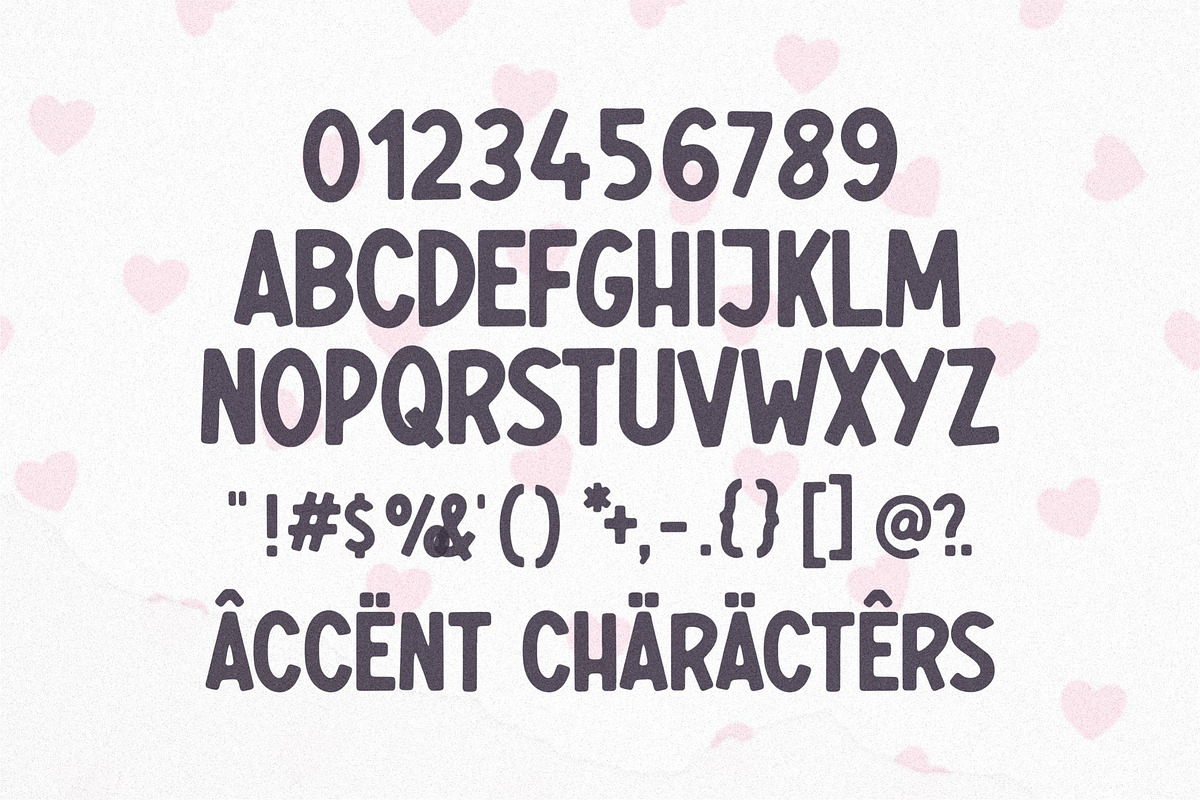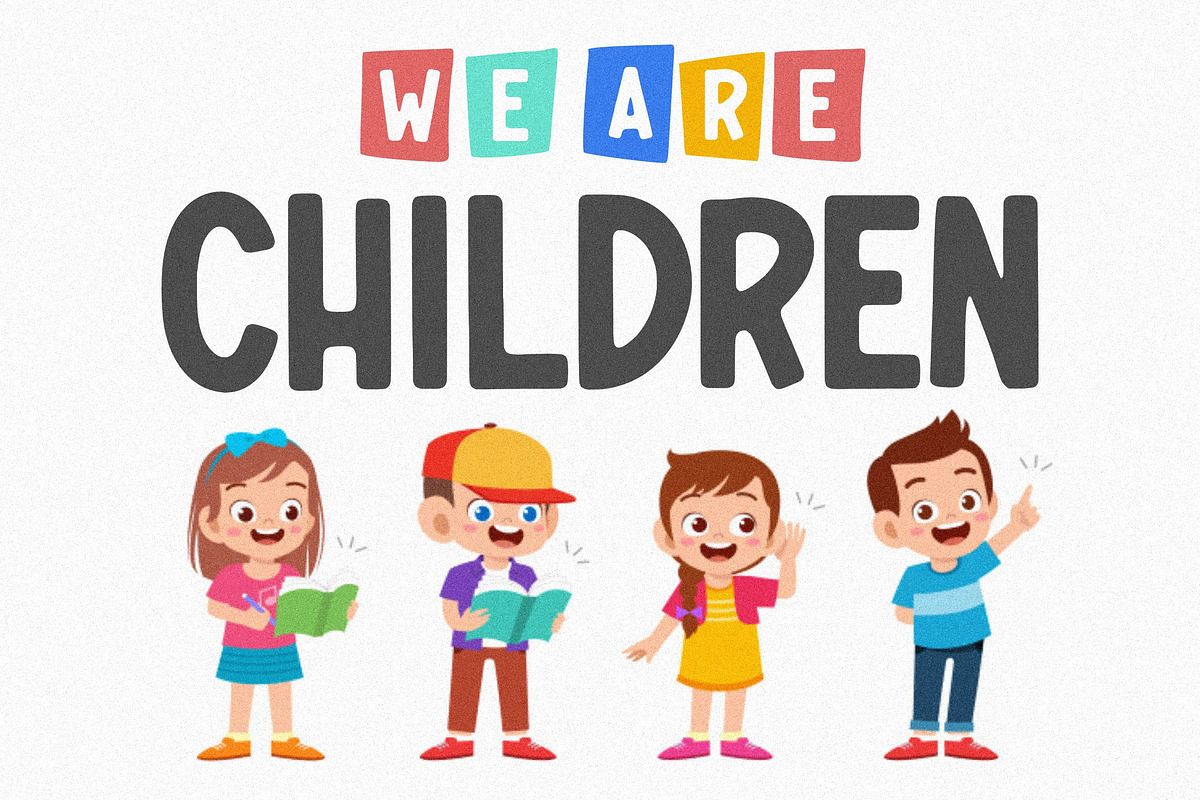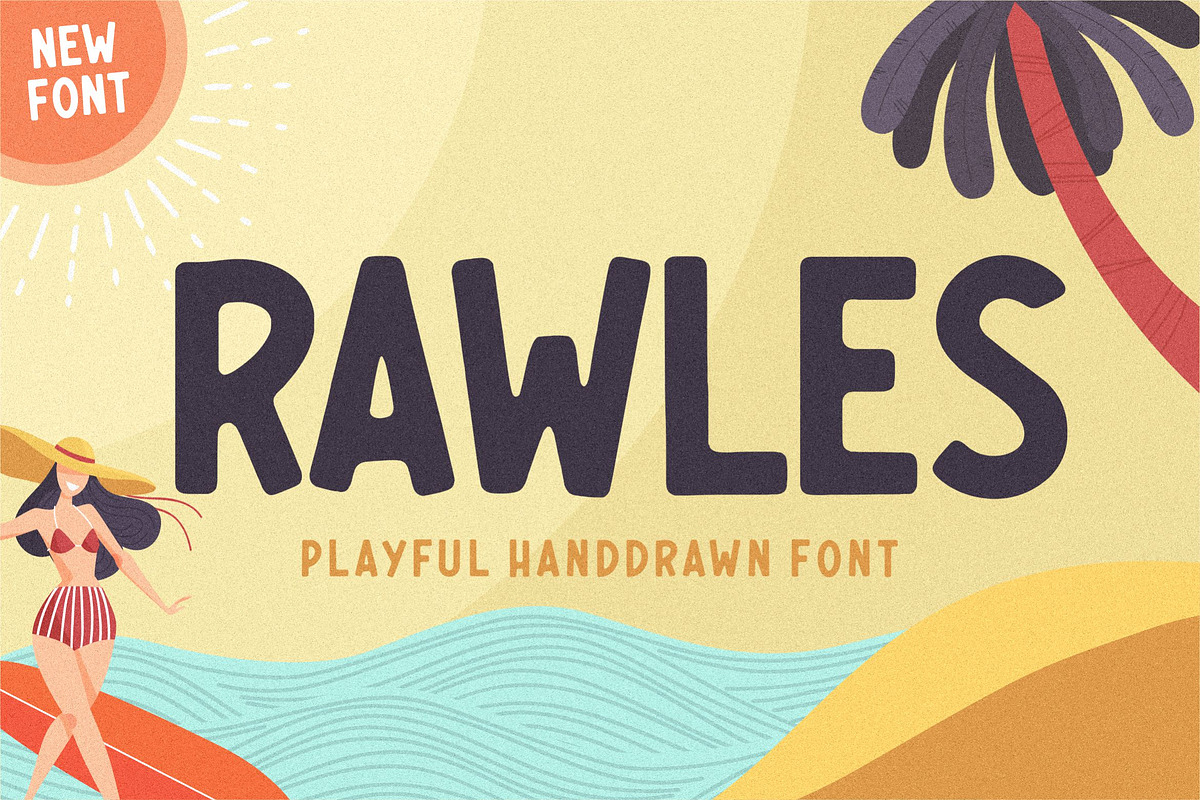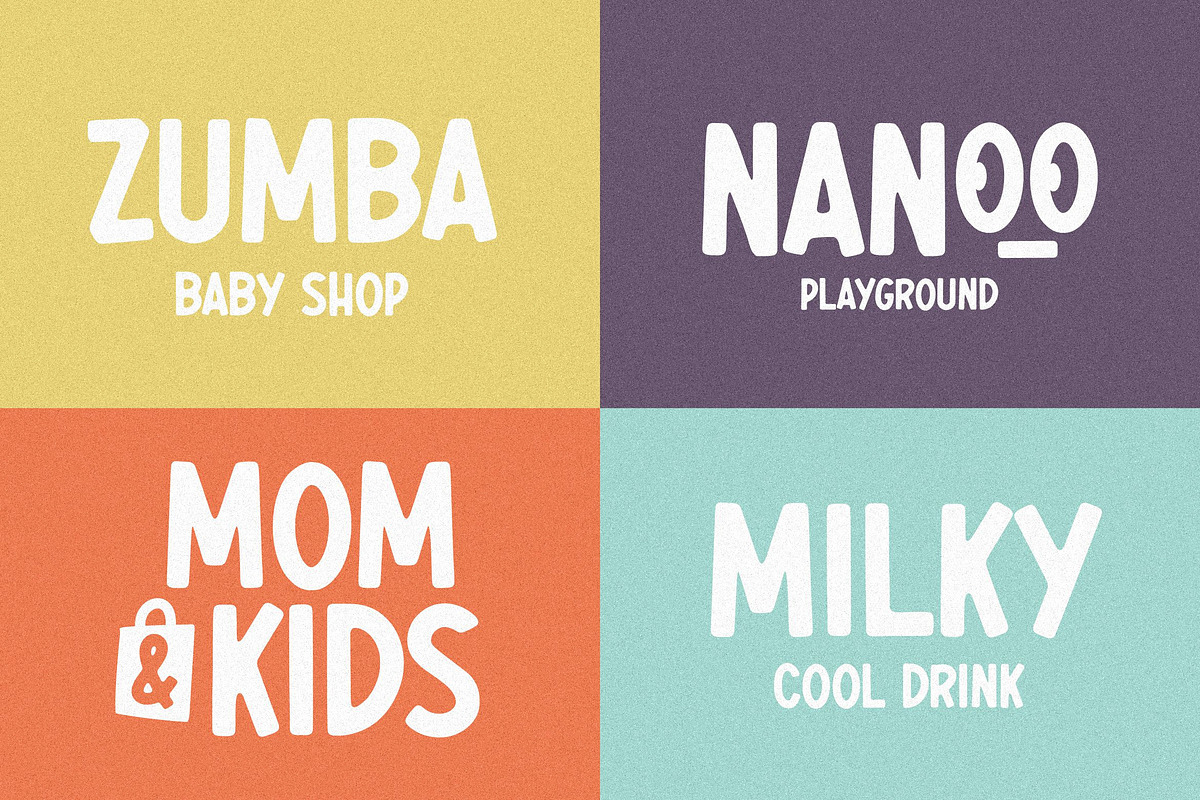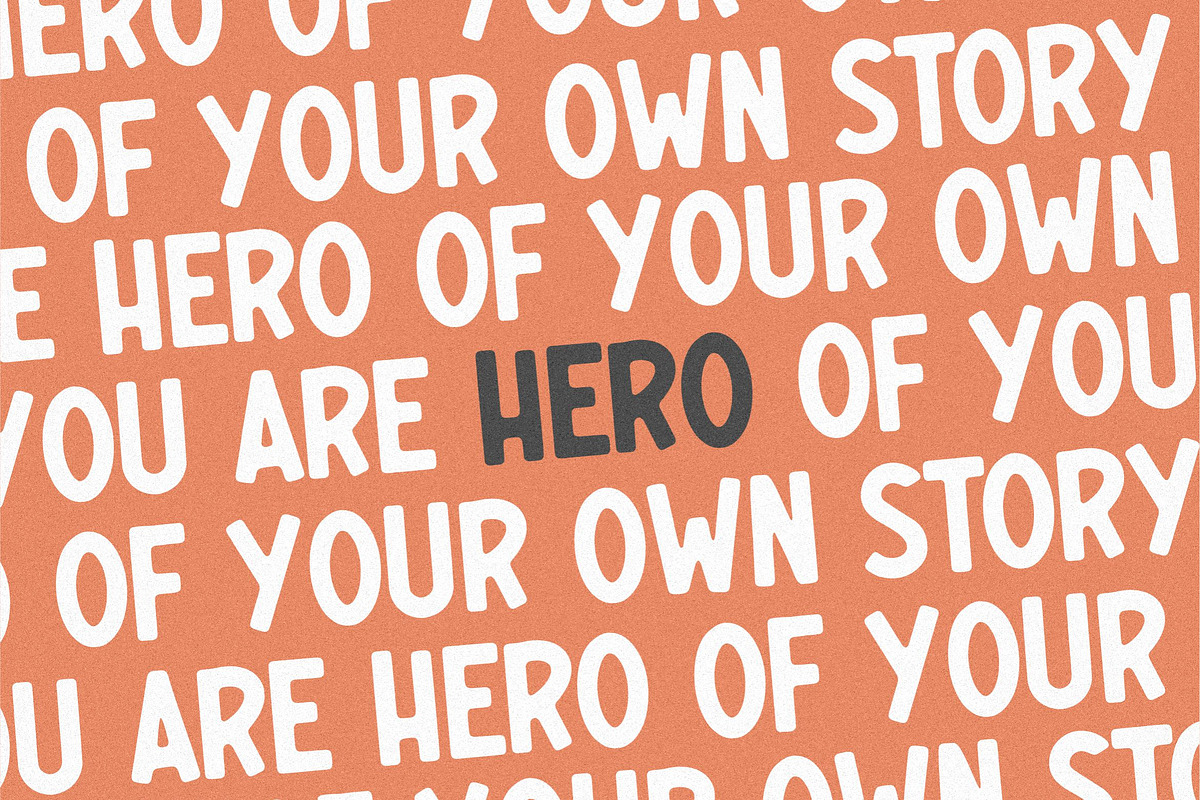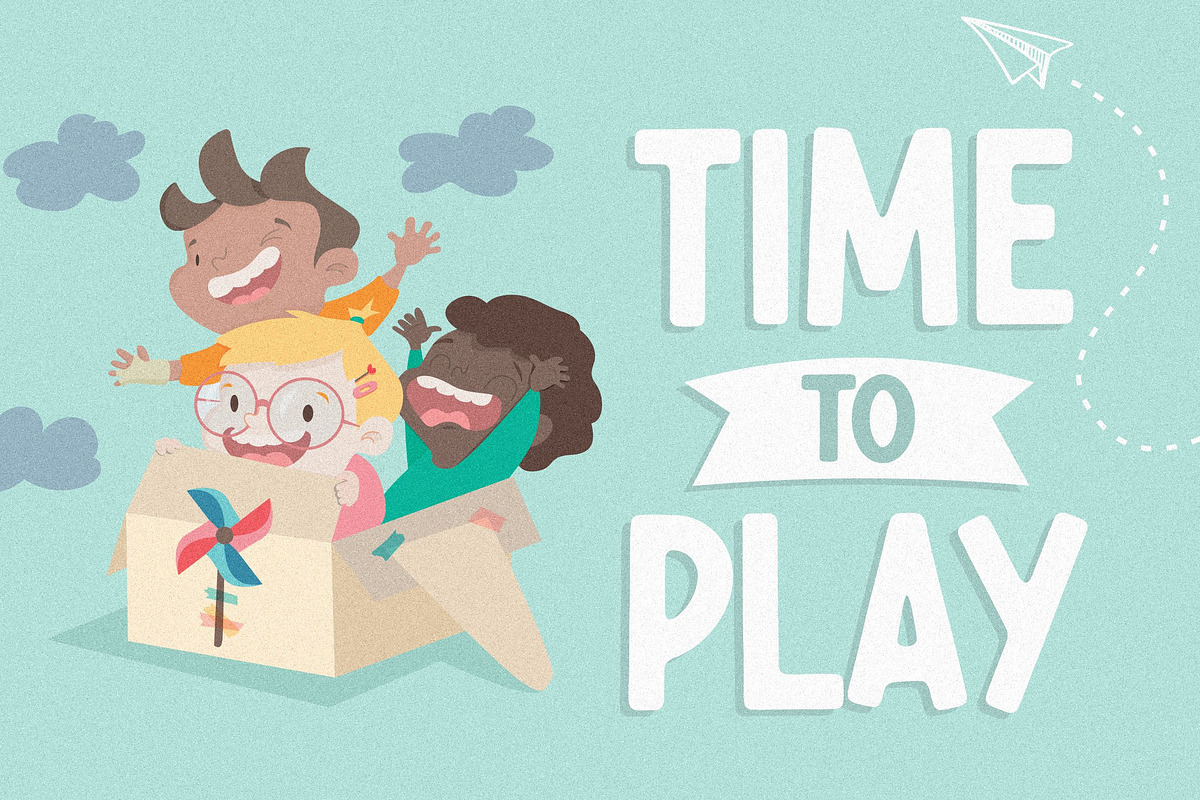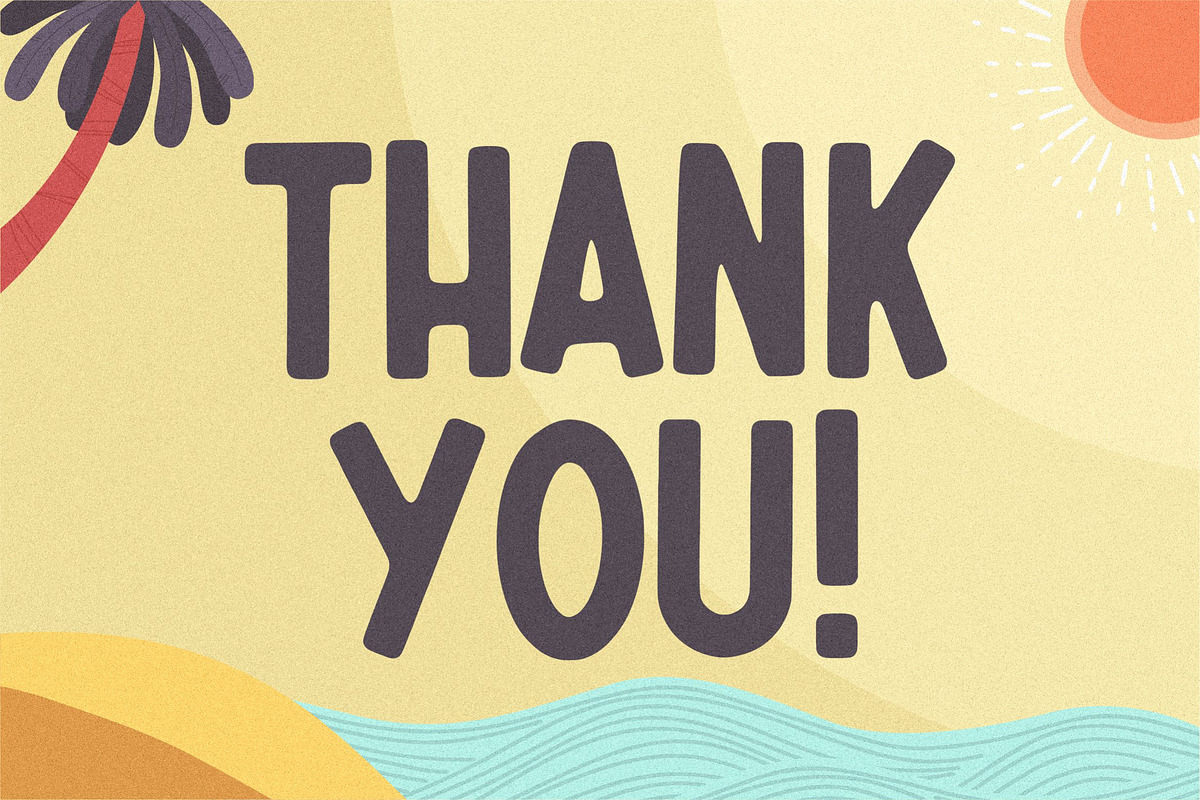
RAWLES - PLAYFUL HANDDRAWN FONT
Proudly Present, Rawles Font
Rawles is a bold and playful display font. Add this vintage style font to your creation. No matter the topic, this font will be an incredible asset to your fonts’ library, as it has the potential to elevate any creation.
- also multilingual support